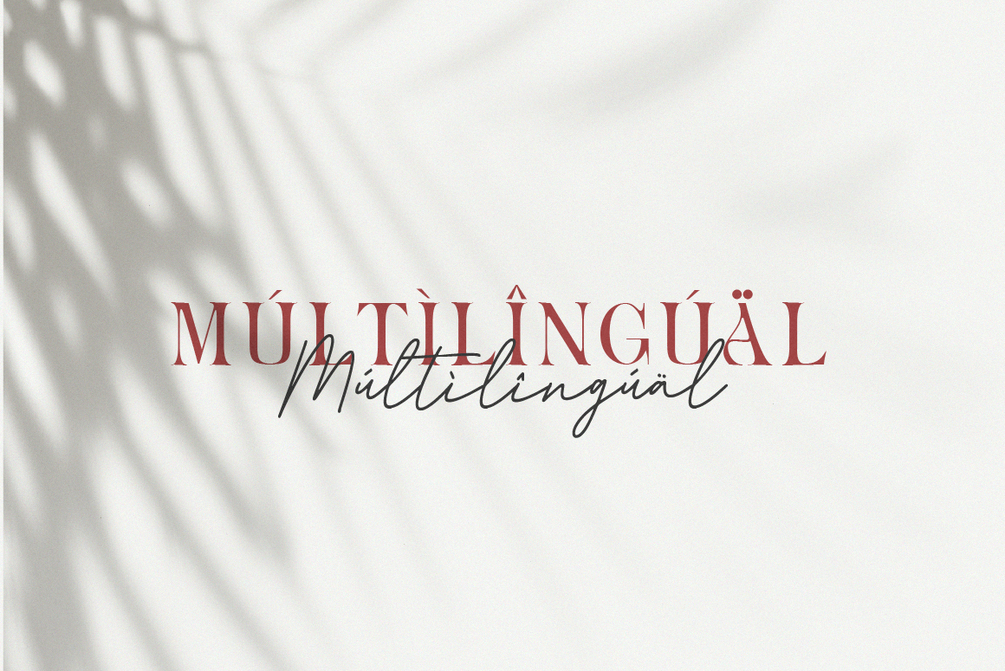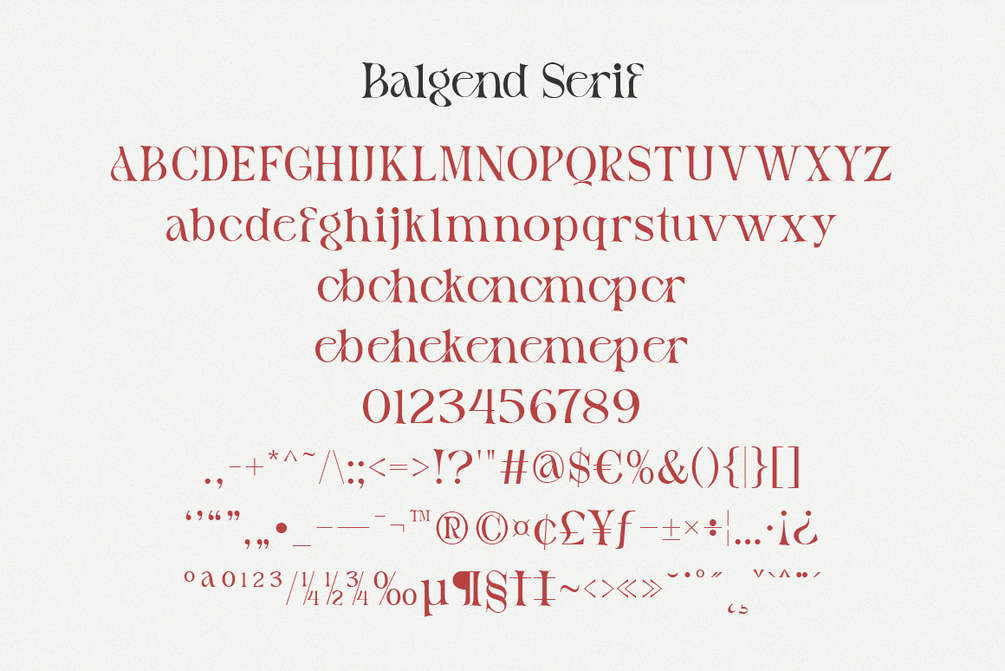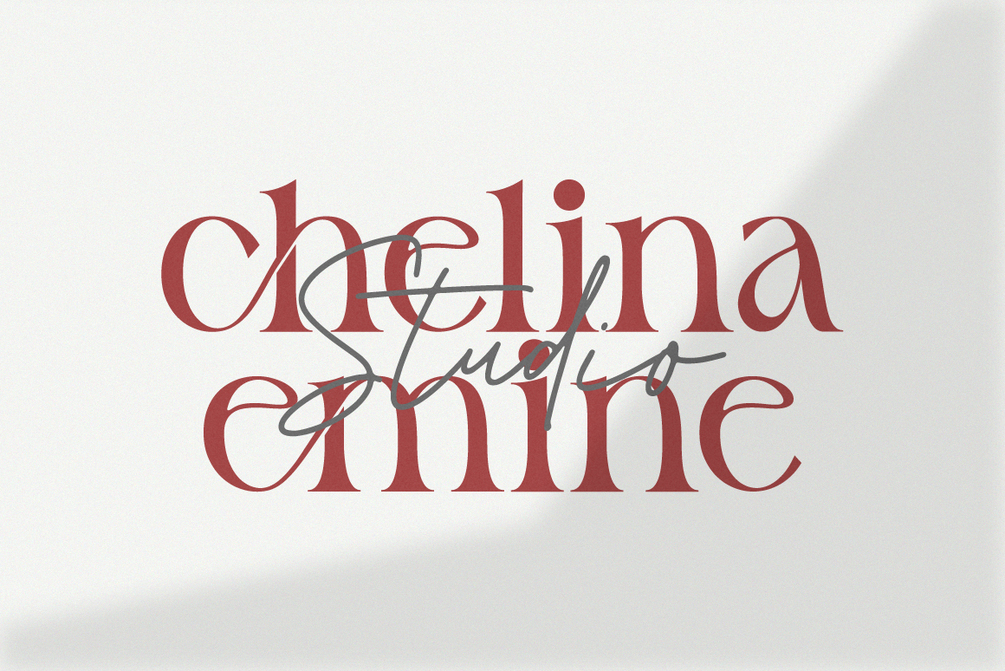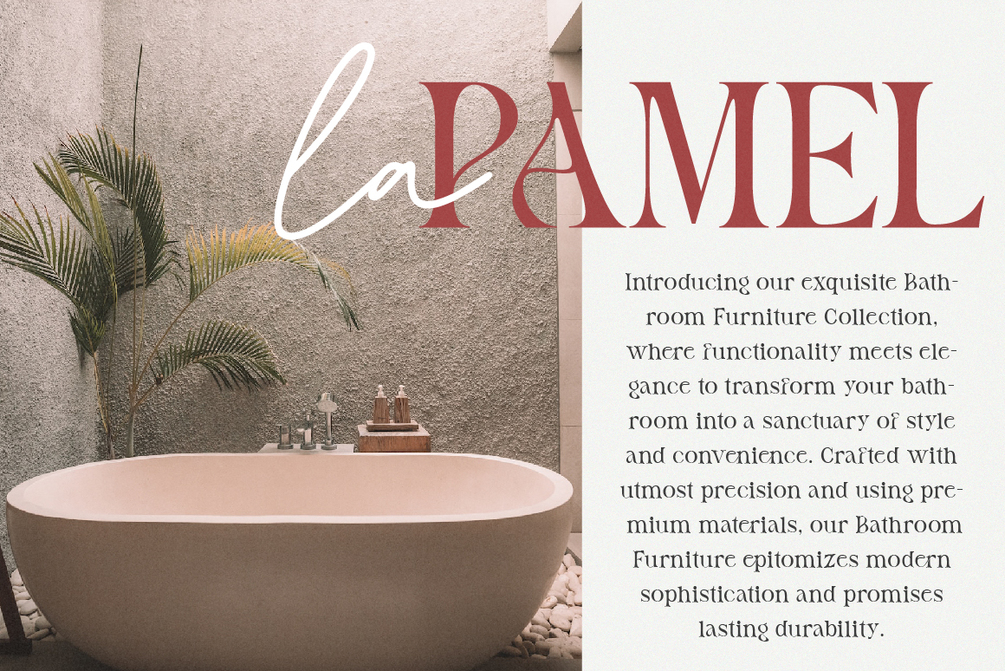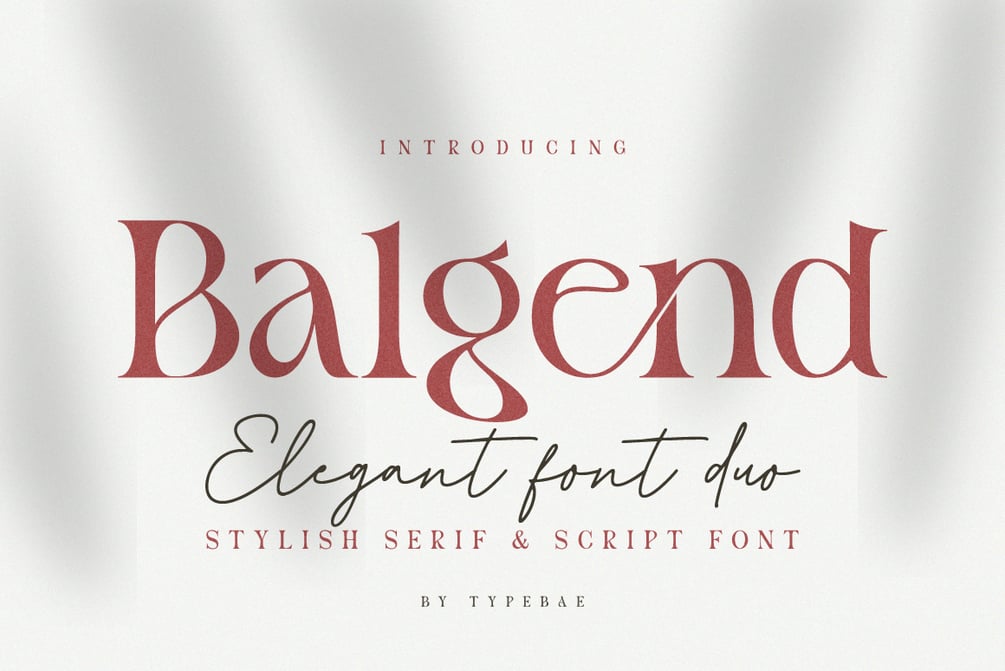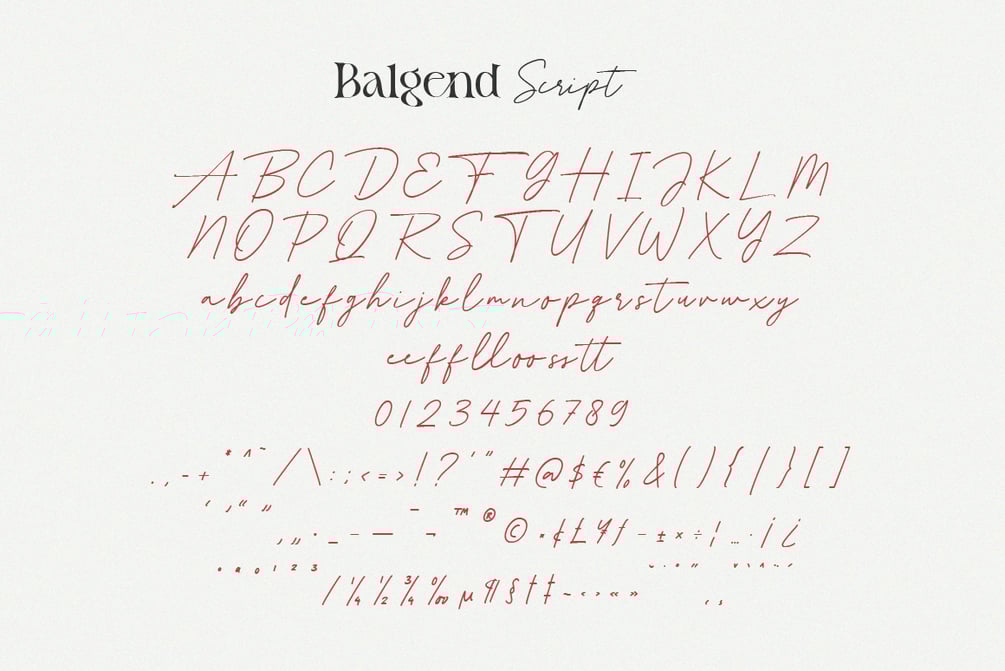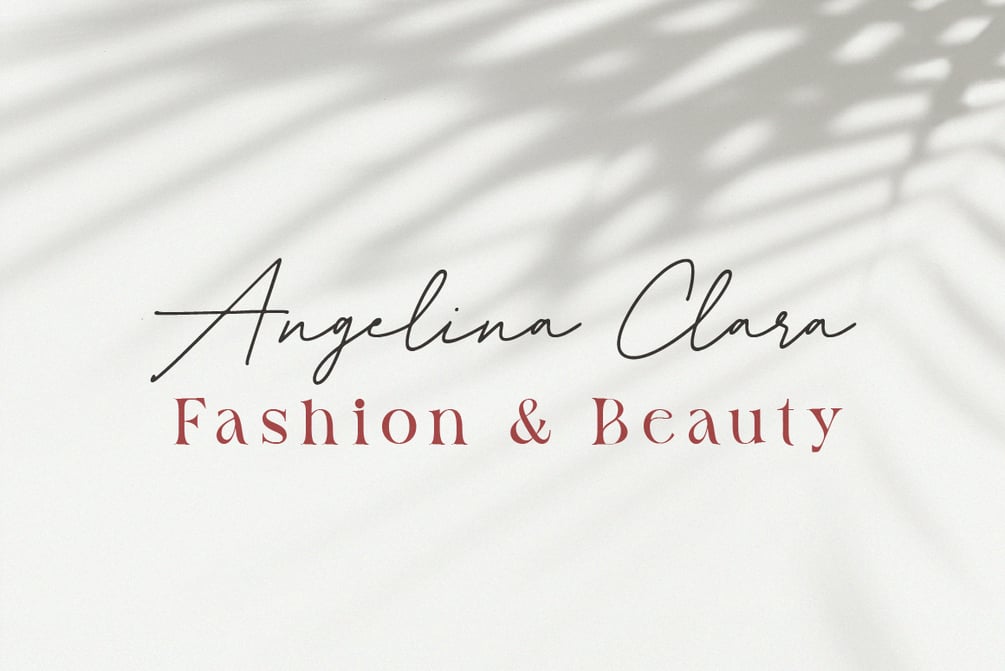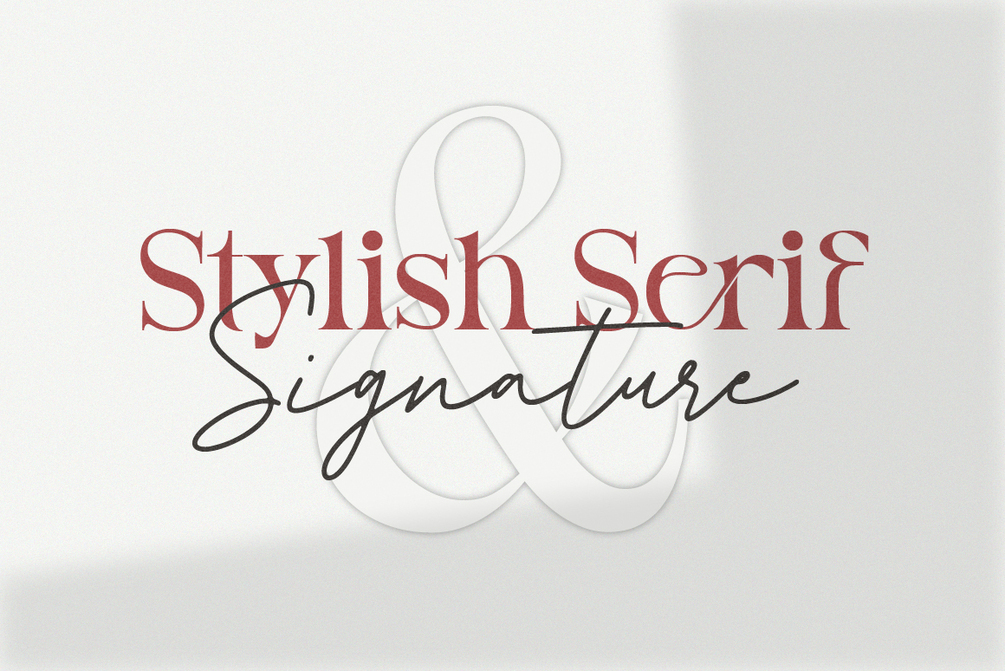
Balgend
Balgend is a captivating and contemporary serif and script font duo that flawlessly marries sophistication with creativity. With its striking balance of classic serifs and expressive script, Balgend adds a touch of timeless elegance to any design project.
Feature: Ligature, Multilingual and PUA encoded.
Languages supported: Afrikaans, Basque, Breton, Catalan, Danish, Dutch, English, Finnish, French, Gaelic (Irish, Scots), German, Icelandic, Indonesian, Irish, Italian, Norwegian, Portuguese, Saami (Southern), Spanish, Swahili, Swedish.